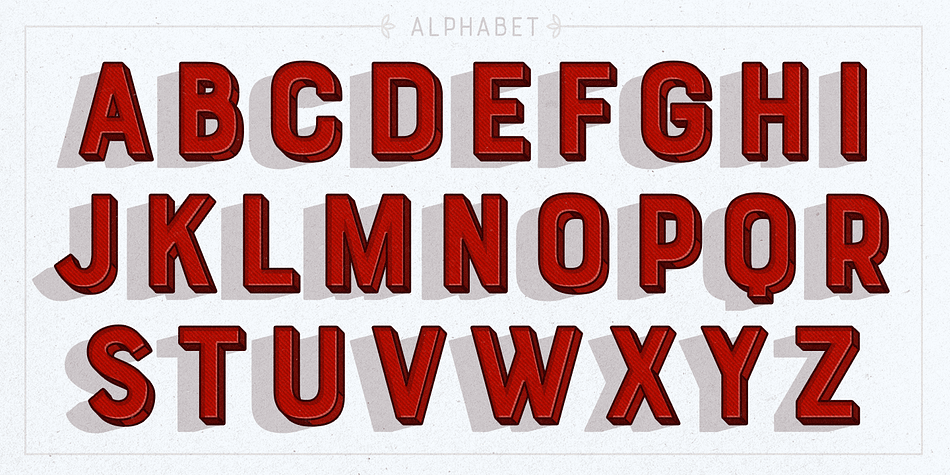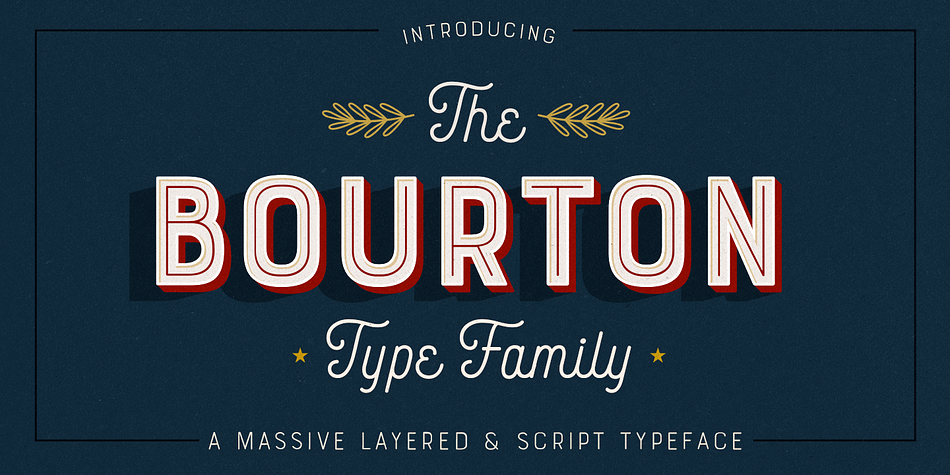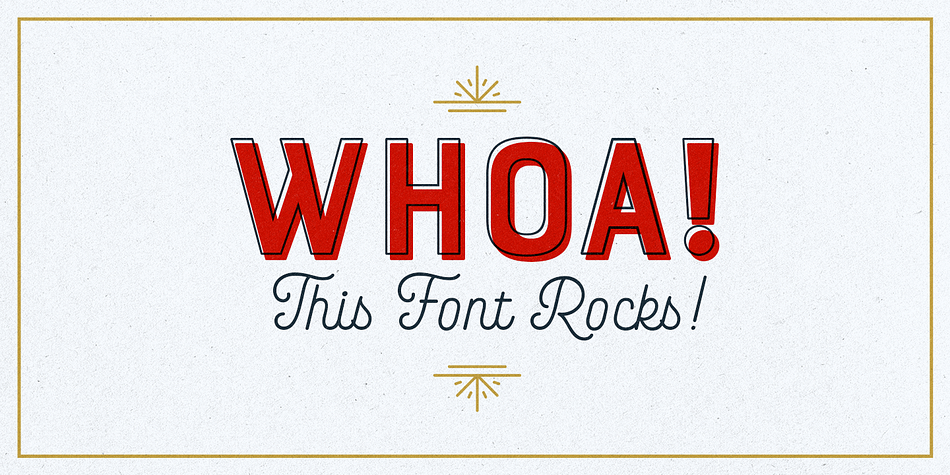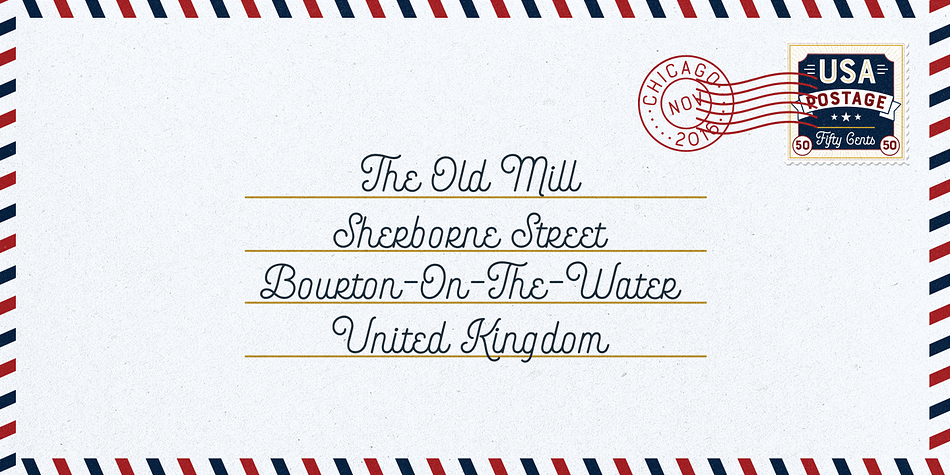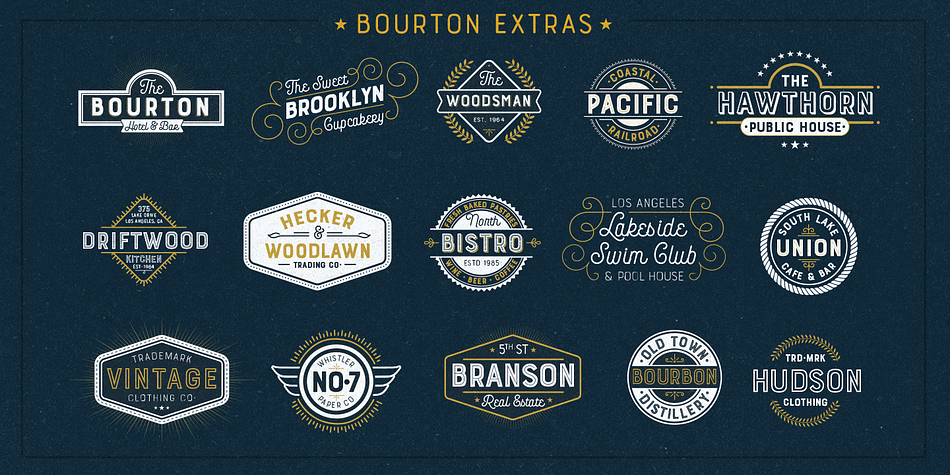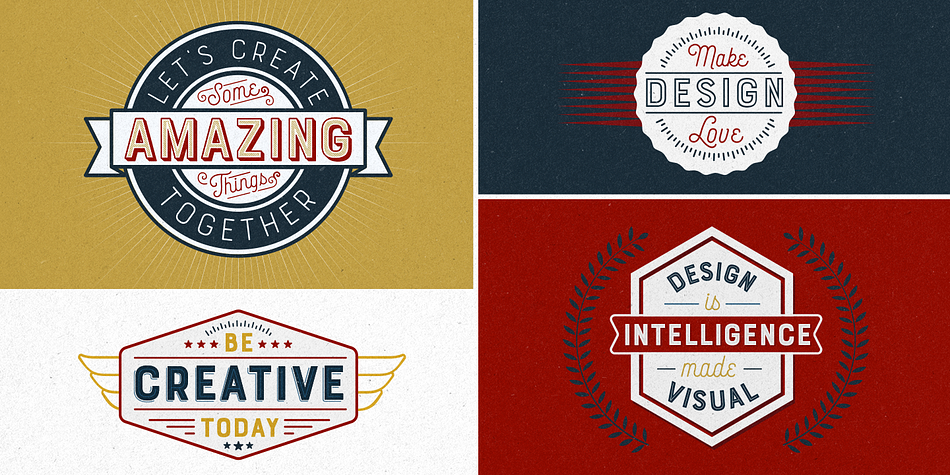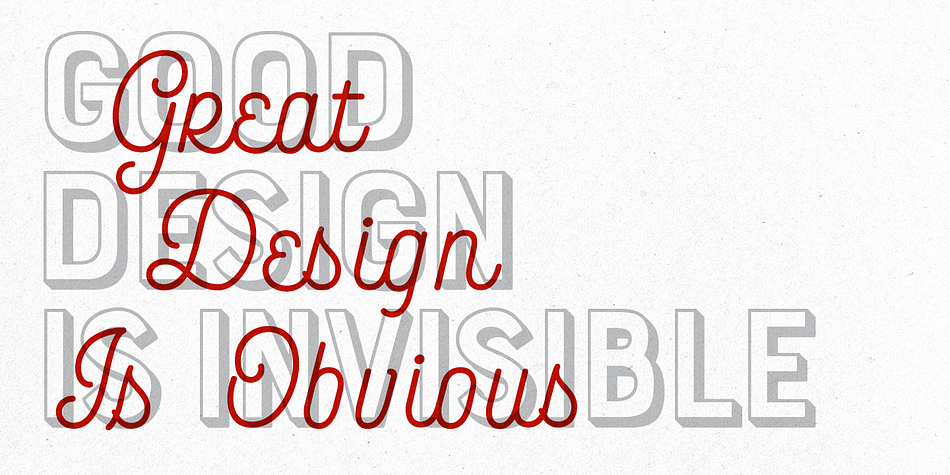
Designed by Kimmy Kirkwood, Bourton is a dingbat, script and display sans font family. This typeface has thirty-four styles and was published by Kimmy Design.
Bourton is a new typeface by Kimmy Design. It’s the sans-serif cousin to Burford. In addition to a new look, it boasts more layering options, stylistic alternatives, graphic extras and even comes with it’s own script font!
To top it off, we are providing you with a set of over 30 free bonus logo templates. These mock-ups utilize some of Bourton’s extras and contain live text. Simply change the placeholder text with your own and ‘BAM!’ you now have a sweet logo. Hopefully these provide some inspiration of how you can use the graphic extras, layering options and script font together to make something awesome.
Bourton Layering Fonts
• 6 Base Layer Fonts (Base, Inline, Marquee, Stripes A, Stripes B, Stripes C)
• 6 Top Layer Fonts (Base Drop, Dots, Line Light, Outline Medium, Outline Bold)
• 6 Extrude Fonts (Extrude, Outline, Shade A, Shade B, Shade C, Shadow)
• 5 Drop Shadow Fonts + 5 solo styles (Drop Shadow, Drop Extrude, Drop Line, Drop Stripes A, Drop Stripes B)
• 2 Line Fonts for secondary text (Line Medium, Line Bold)
Bourton Script
• Light
• Bold
Bourton Extras
Styles | Display Sans, Script, Dingbat |
Designer | Kimmy Kirkwood |